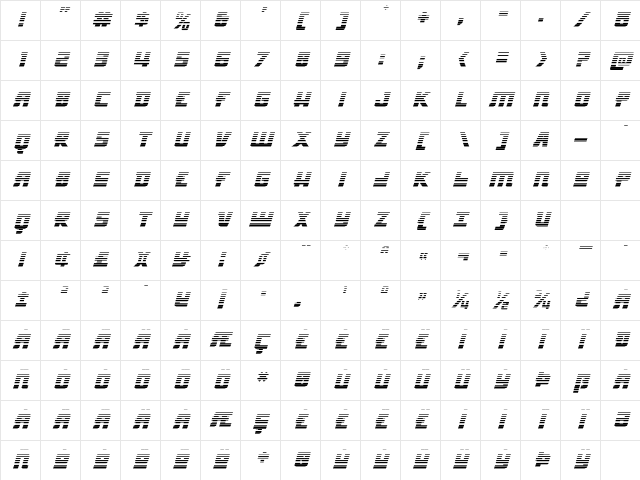
Complete Hong Kong Hustle Gradient Italic Italic glyph index. Displaying only characters natively supported by Hong Kong Hustle Gradient Italic Italic font.
Hong Kong Hustle Gradient Italic is a composed and adaptable typeface that performs quietly and consistently across a wide range of design contexts. The slanted form adds forward momentum and visual energy.